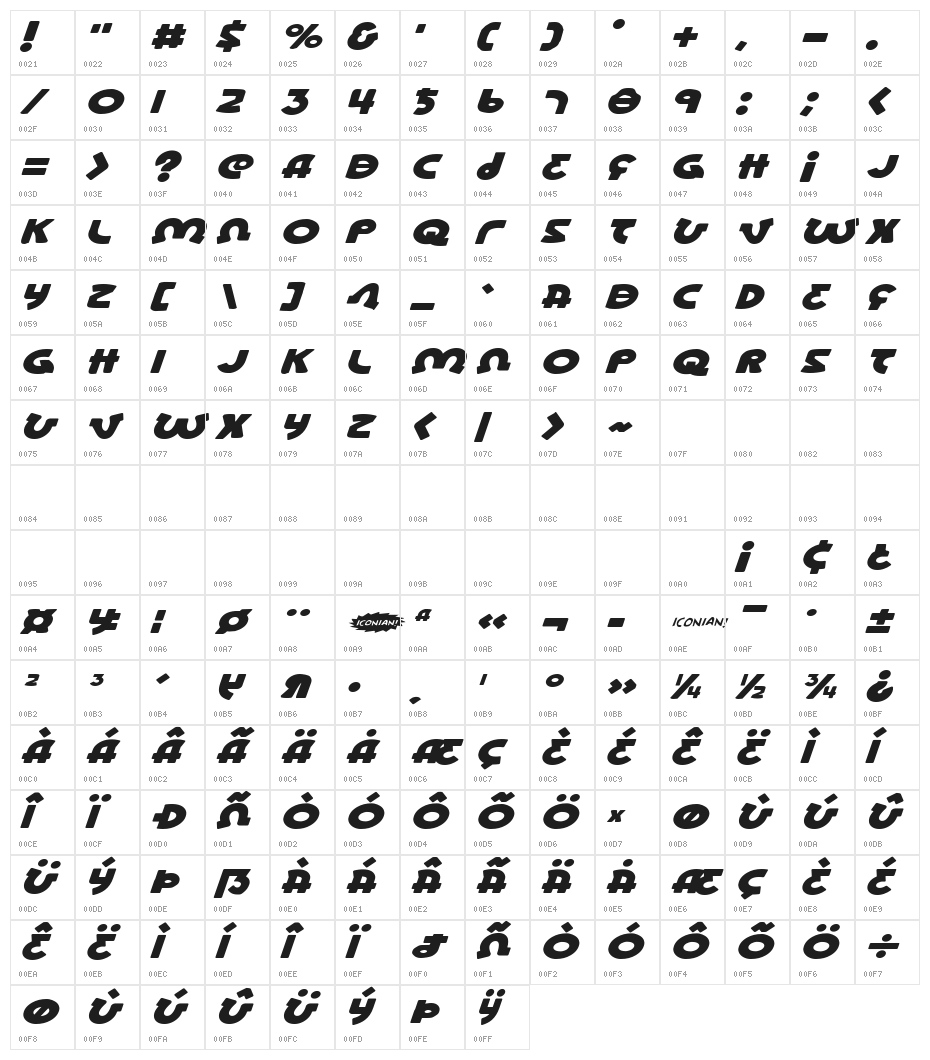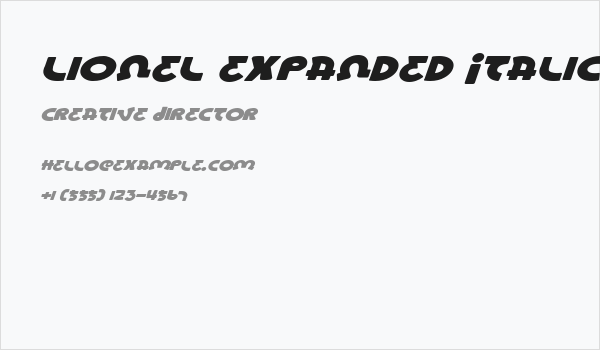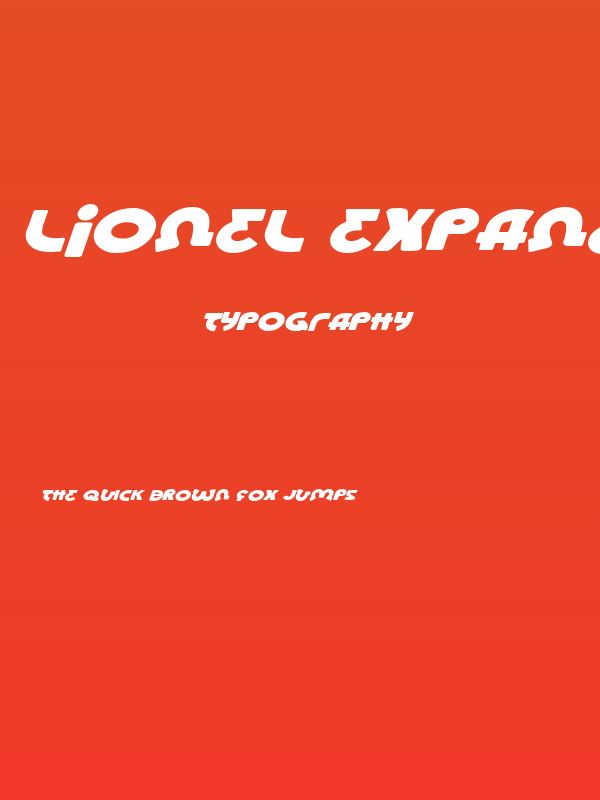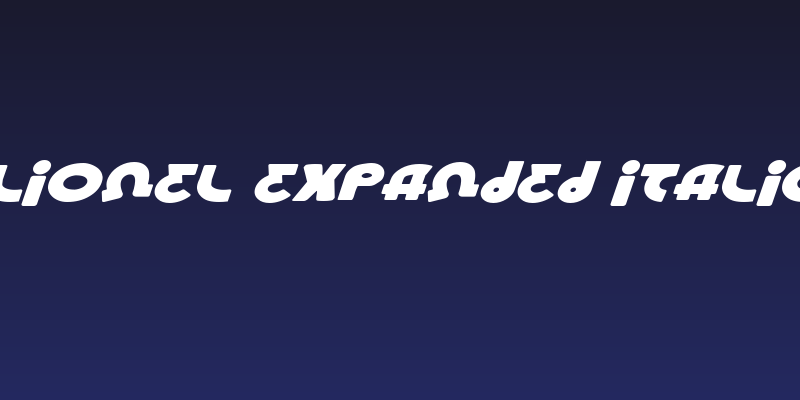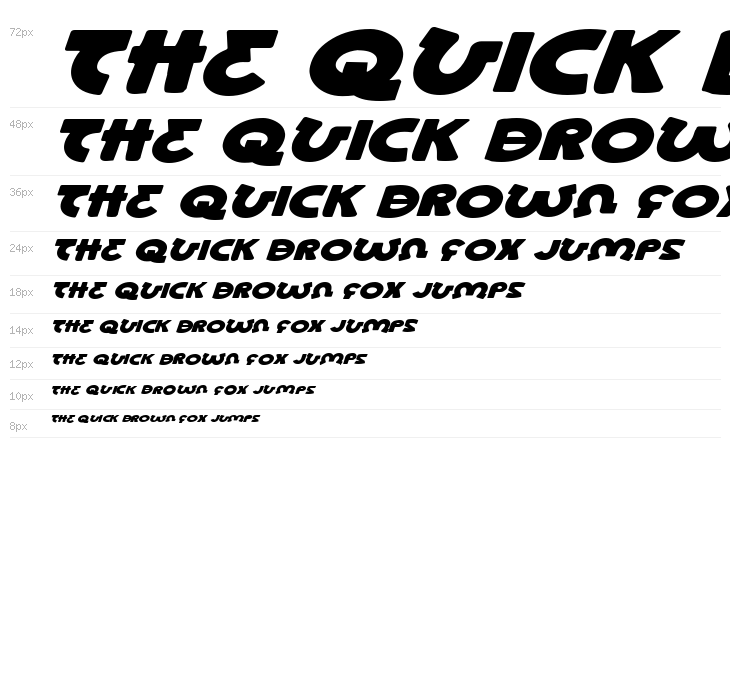
Lionel Expanded Italic Font
Lionel Expanded Italic Description
This font features a bold and dynamic style with an expanded width and italic slant, giving it a sense of movement and energy. The characters are robust and have a strong presence, making them ideal for attention-grabbing designs. The uppercase and lowercase letters maintain a consistent style, with rounded edges and a playful yet assertive look. The numbers and special characters follow the same design principles, ensuring uniformity across all glyphs. This font's unique style makes it suitable for creative and modern design projects.
| Proposed Projects | Ideal for posters, logos, branding, and any design requiring a bold and energetic typeface. |